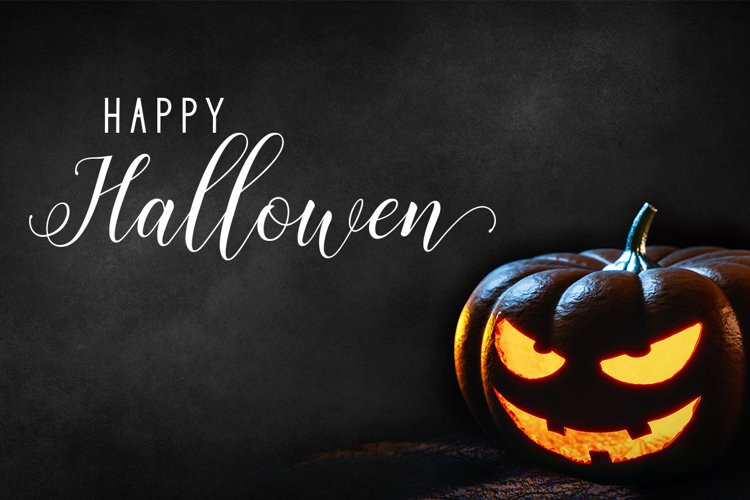
Histeria Font
Histeria FontHisteria script a new fresh & modern script with a handmade calligraphy style, decorative characters and a dancing baseline! So beautiful on invitation like greeting cards, branding materials, business cards, quotes, posters, and more!!
Histeria script come with 385 glyphs. The alternative characters were divided into several Open Type features such as Swash, Stylistic Sets, Stylistic Alternates, Contextual Alternates. The Open Type features can be accessed by using Open Type savvy programs such as Adobe Illustrator, Adobe InDesign, Adobe Photoshop Corel Draw X version, And Microsoft Word. And this Font has given PUA unicode (specially coded fonts). so that all the alternate characters can easily be accessed in full by a craftsman or designer.